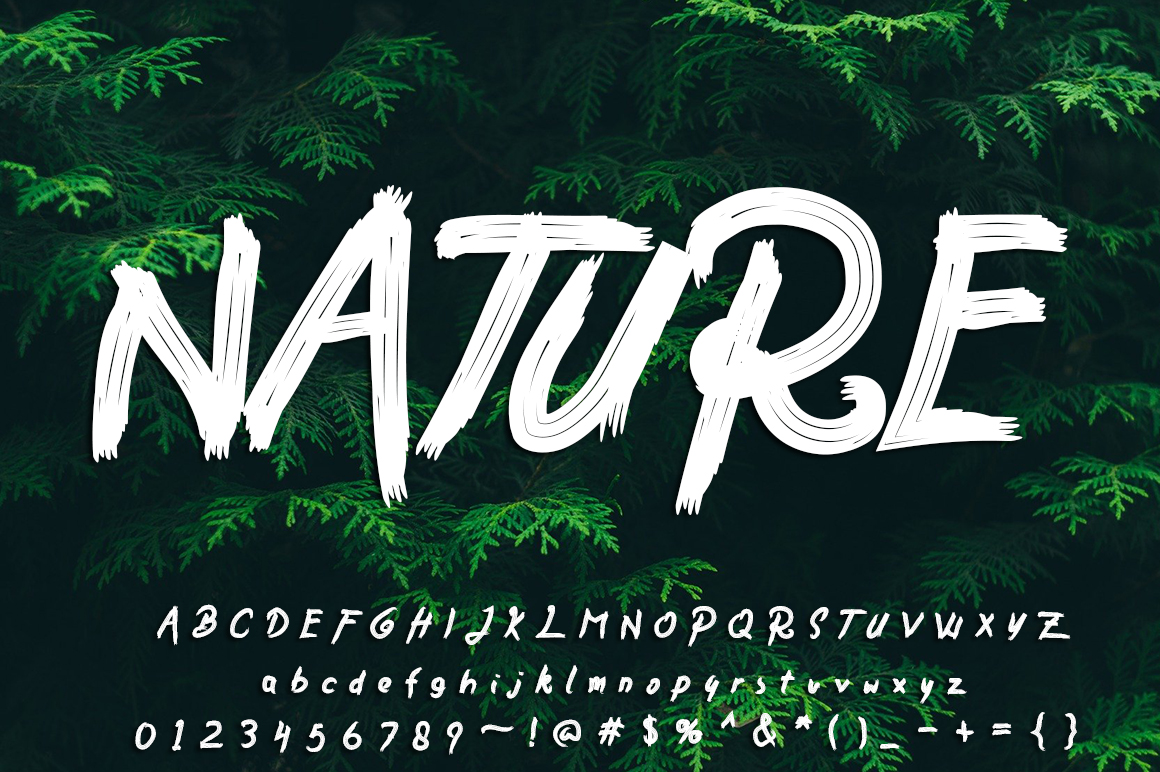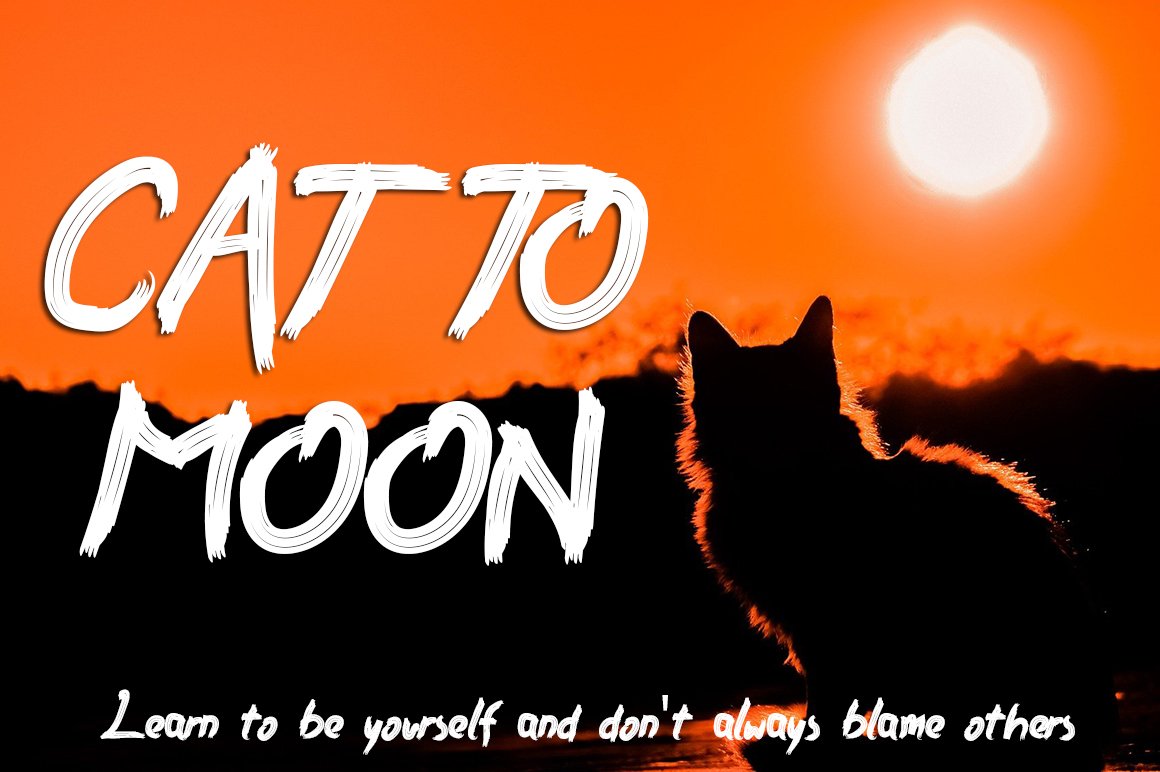
Silent Brush Font
This is a modern brushed display font that is readable, bold and stylish. It is defined by smooth curves and is perfect for fashion branding or editorial designs. Add it confidently to your projects, and you will love the results.